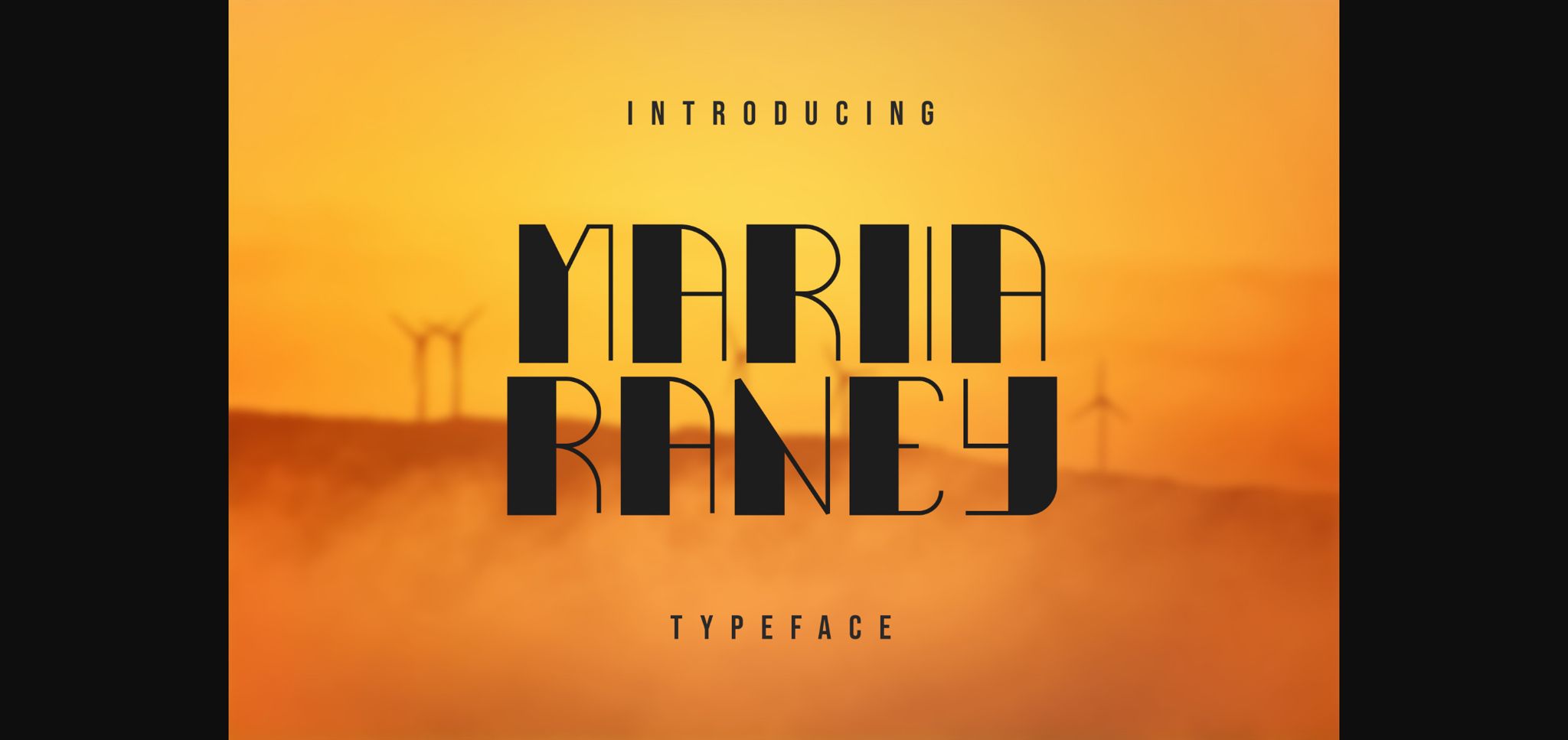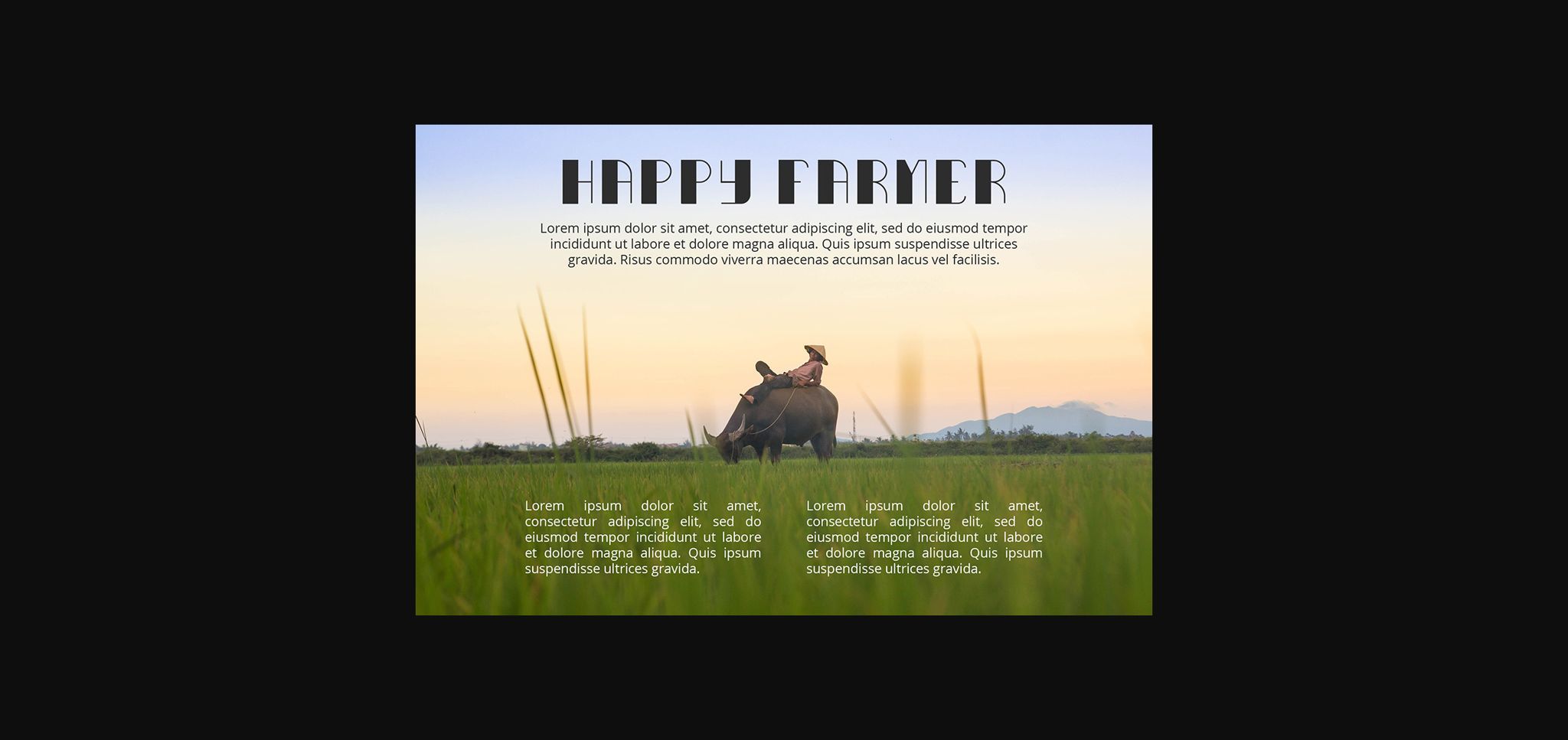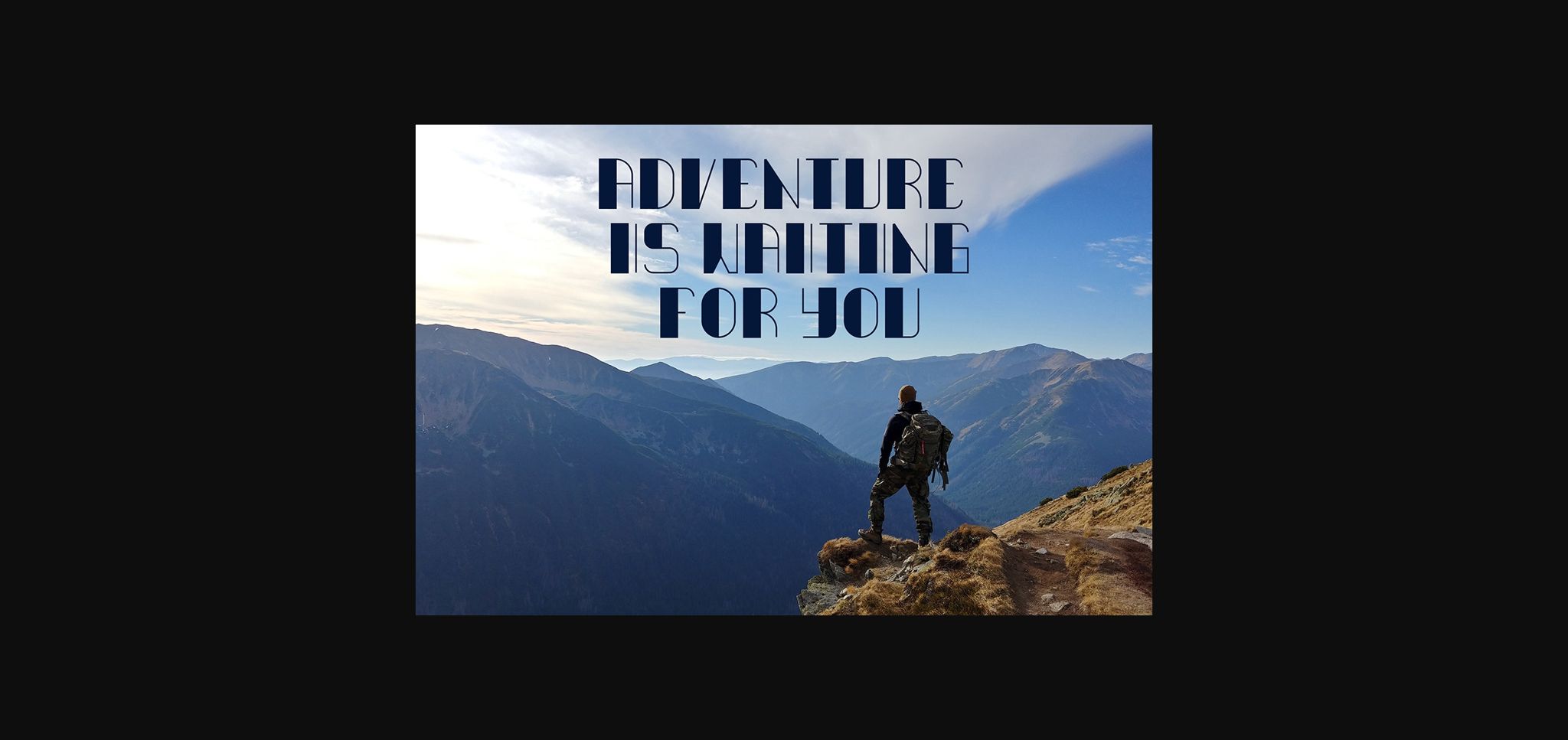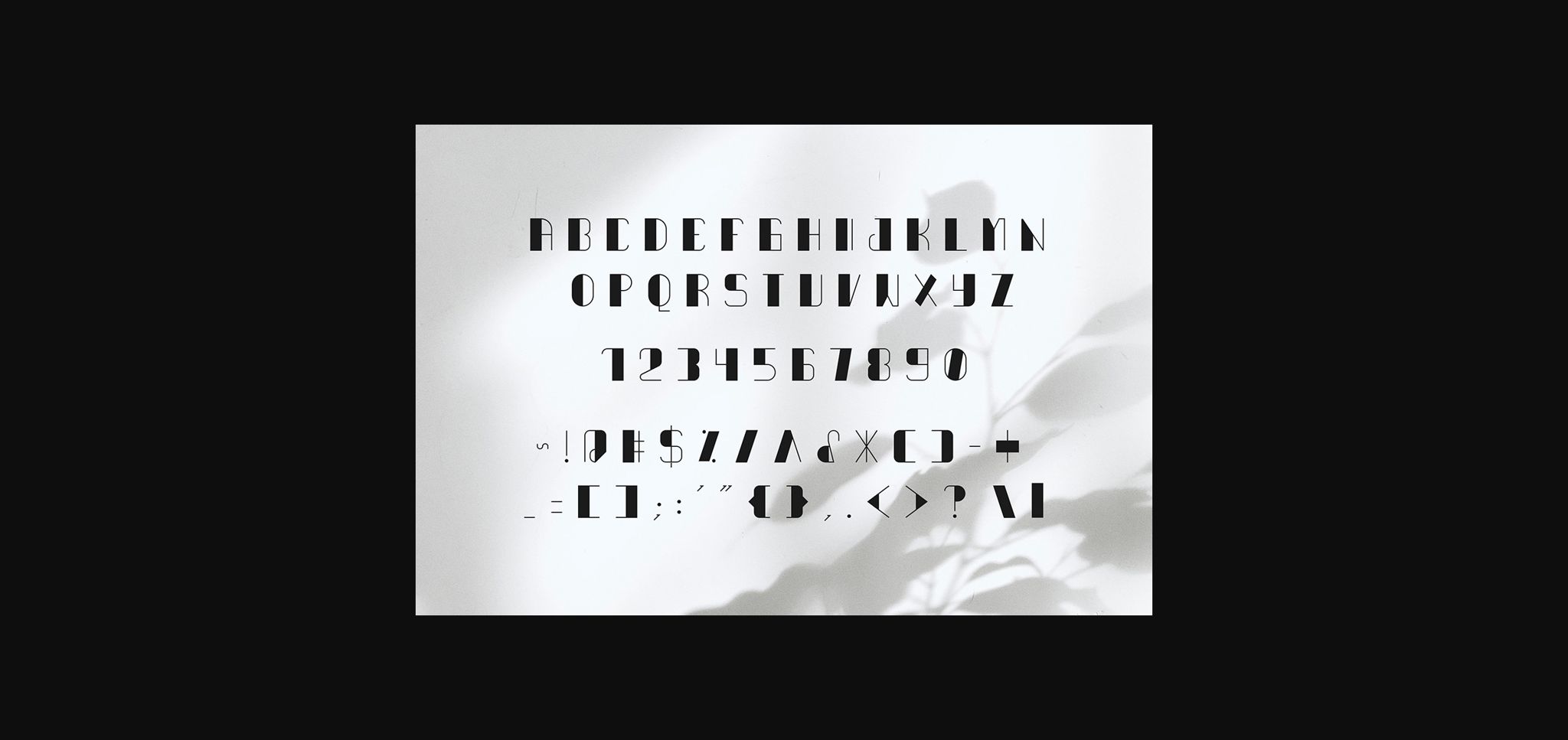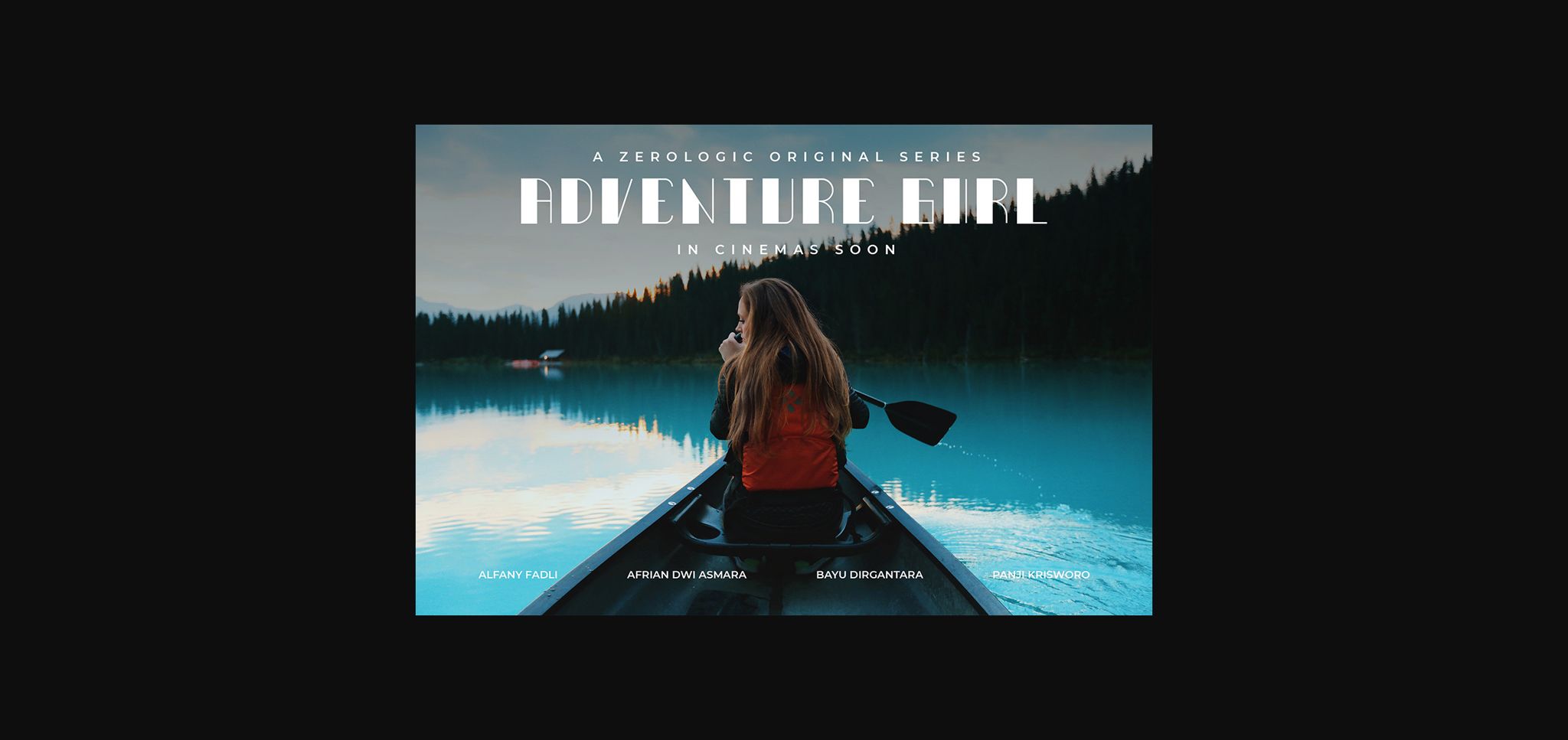
Maria Raney is a modern sans serif font that we designed with original touch for your needs.
This cool font is complete with Uppercase, Lowercase, and Numeric & symbols. This very strong and sharp font is perfect for titles, typography, posters, magazines, brochures, packaging, Websites, and much more for your design needs, making your designs cooler.